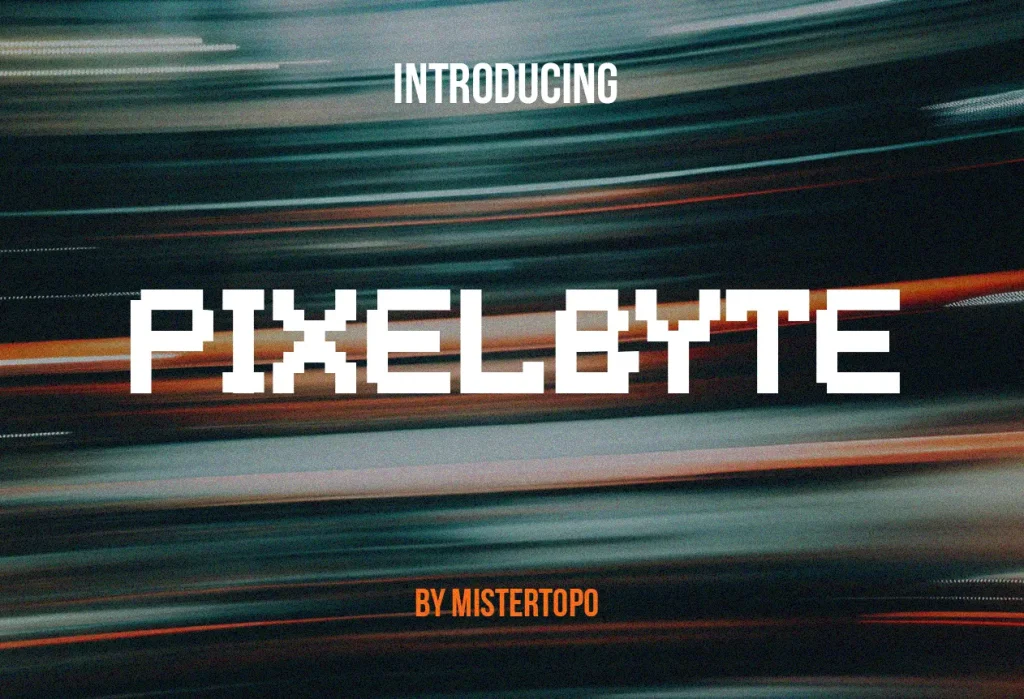
Pixelbyte is a free TTF font created for designs needing a retro gaming look. It helps you build a strong 8-bit or arcade aesthetic in their work.
The download includes both solid and outline letter styles, along with numbers.
Use Cases
- Creating titles for retro or arcade-style video games
- Designing posters and flyers with a nostalgic theme
- Making social media graphics that capture an old-school digital vibe
- Adding text to personal pixel art projects
- Building digital interfaces with a retro computer aesthetic